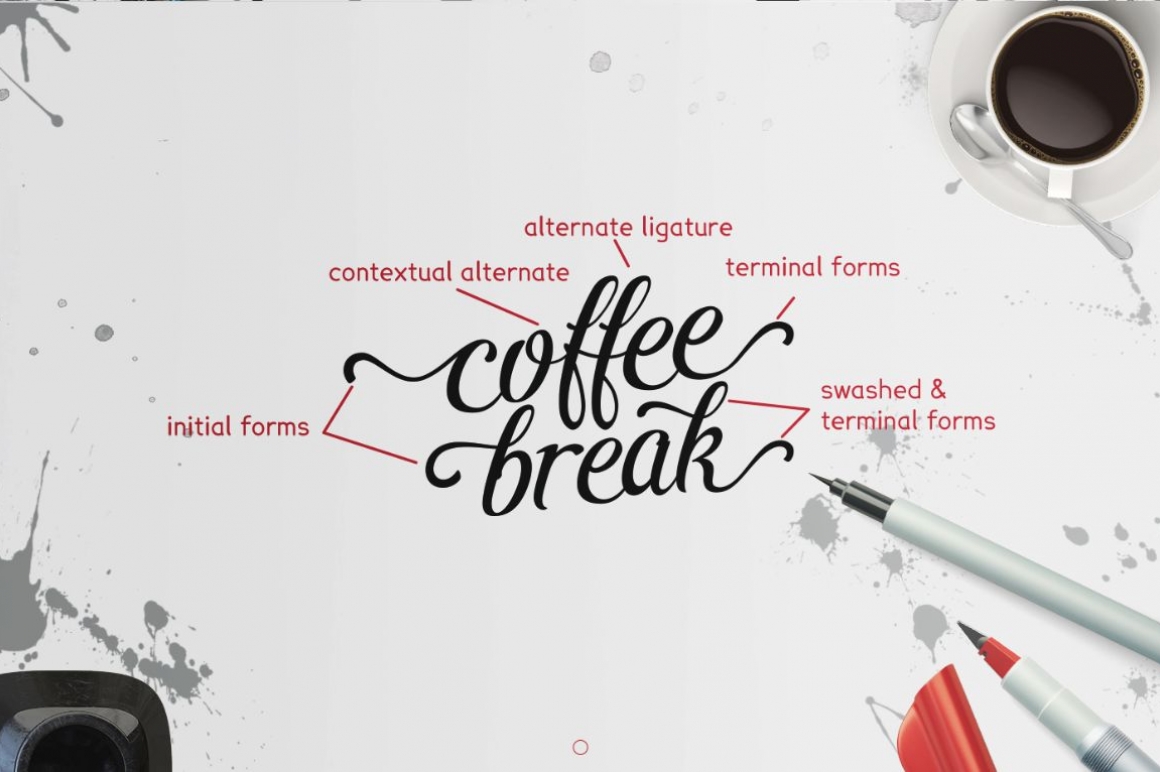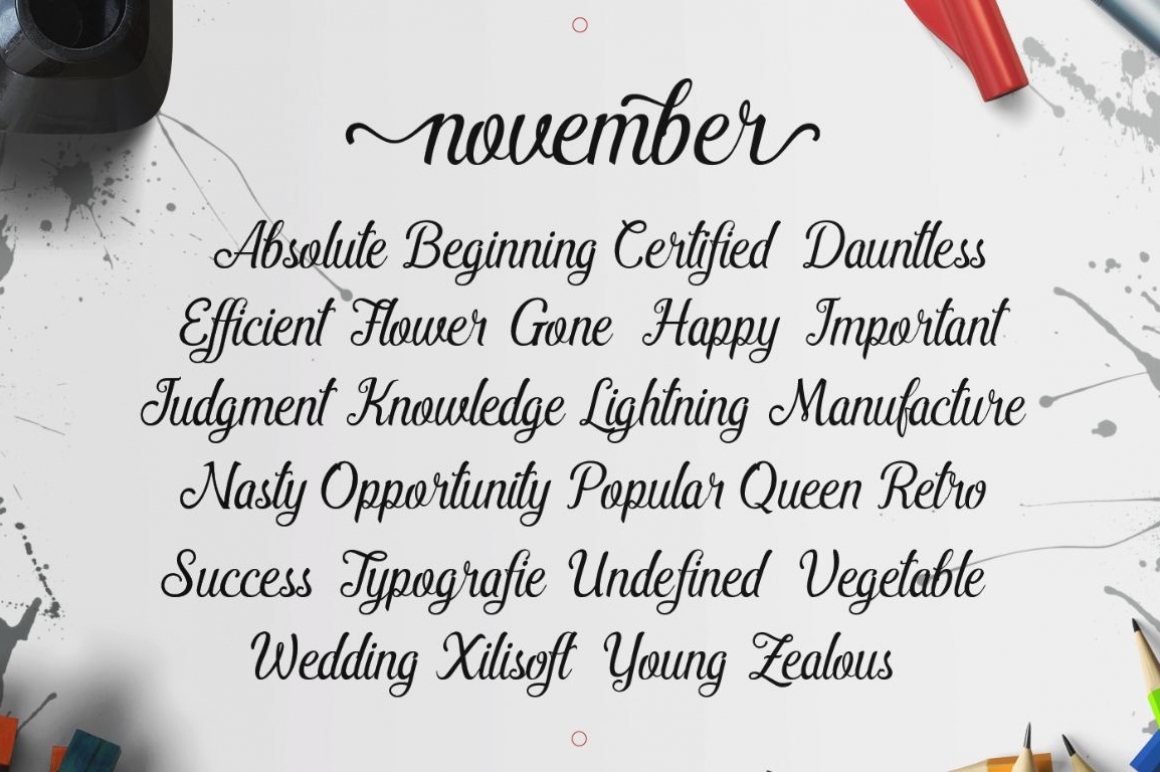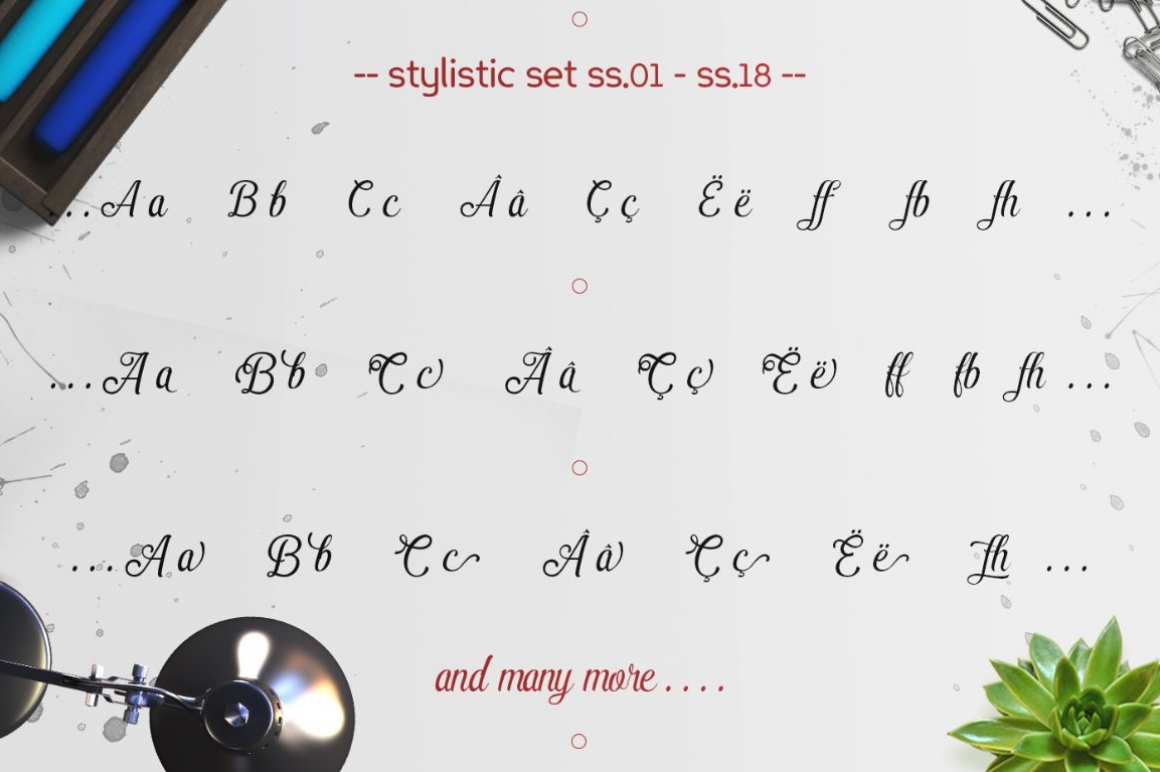
Pamega Script
Pamega Script is a modern font with more featured and made with hand lettering. Pamega Script have a glyphs over 2300 glyphs, this font suitable for wedding invitation, greeting cards, T-Shirt, Logo or any design that you create. comes with a complete set of standard characters, Alternates, Punctuation & international glyphs, Swashed, Fraction, Contextual and many more.